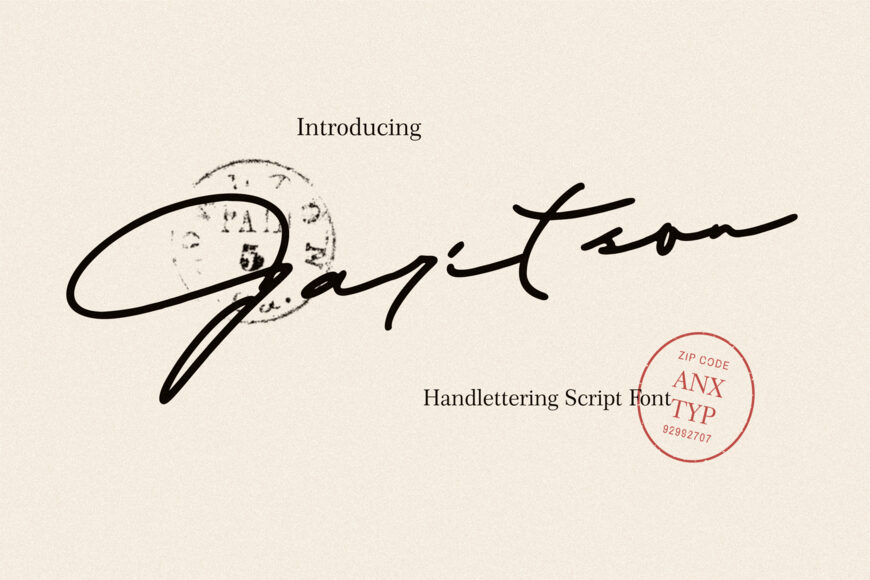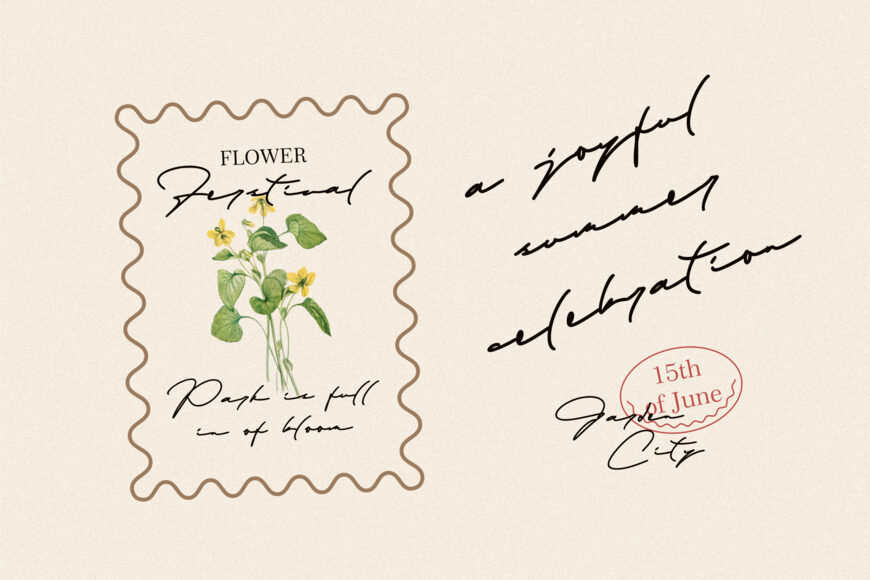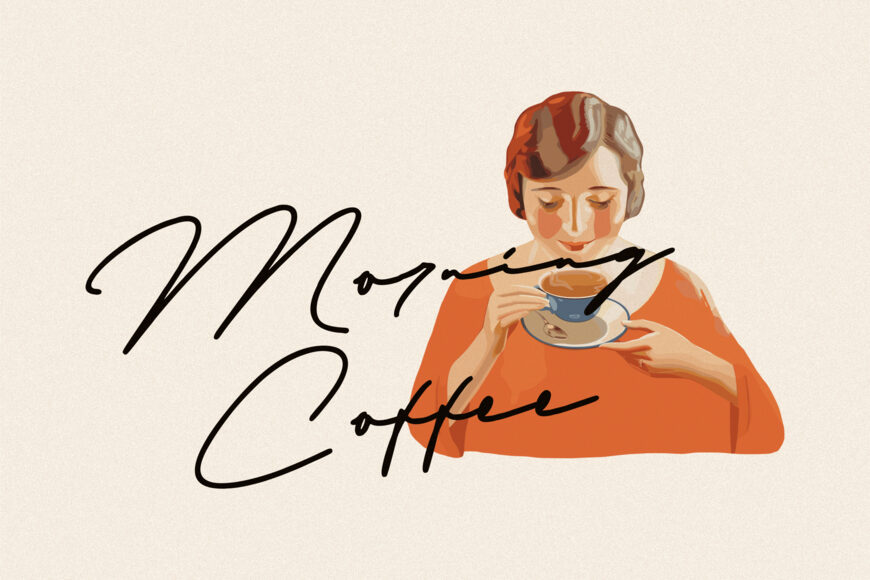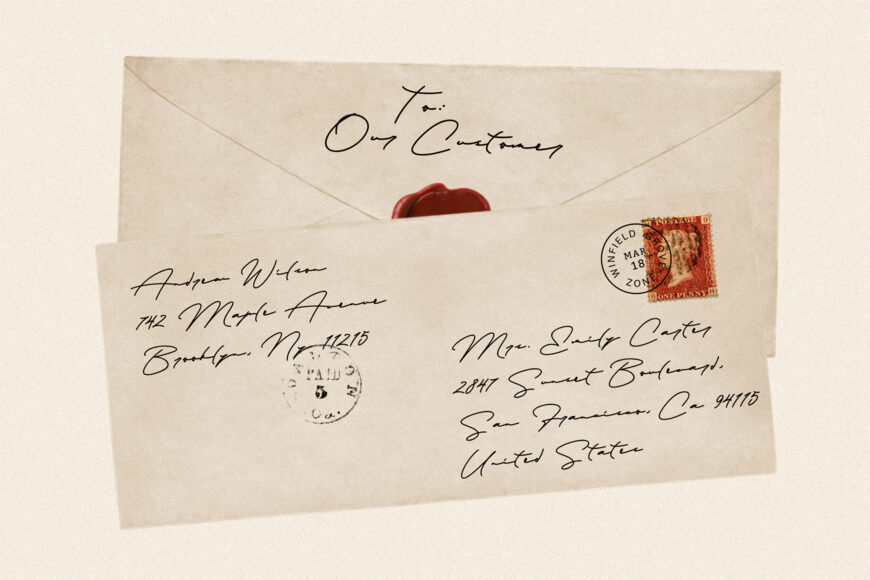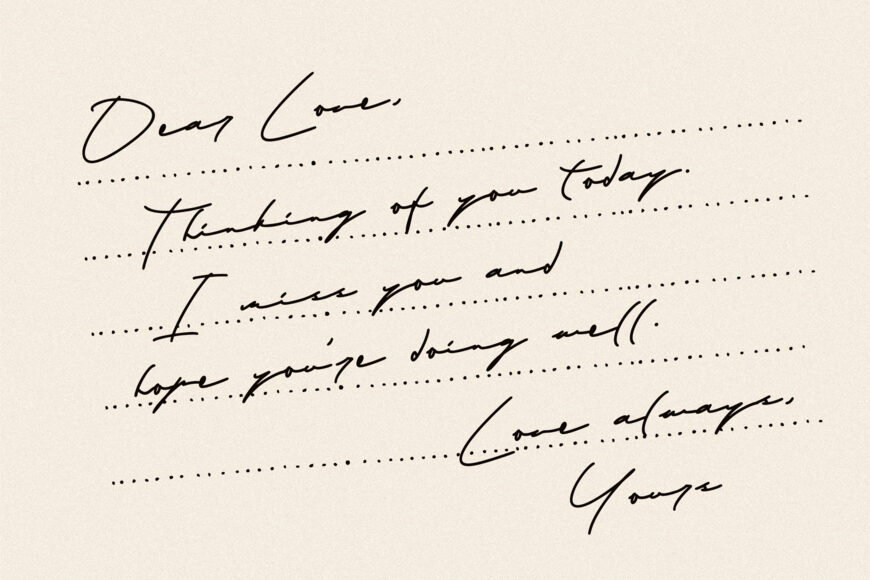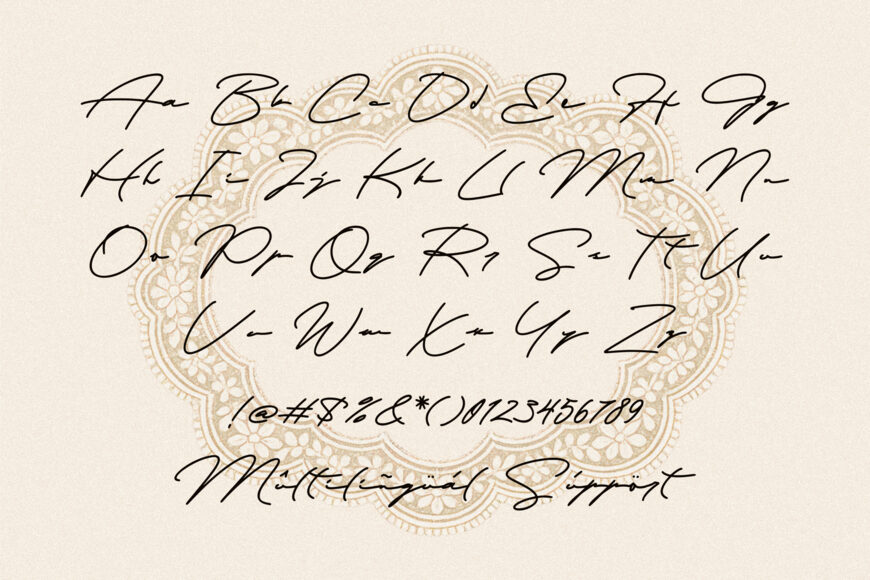
Garitson is a charming monoline script font inspired by natural ballpoint handwriting. Its smooth, casual strokes create an authentic handwritten feel that is personal, clean, and effortlessly stylish.